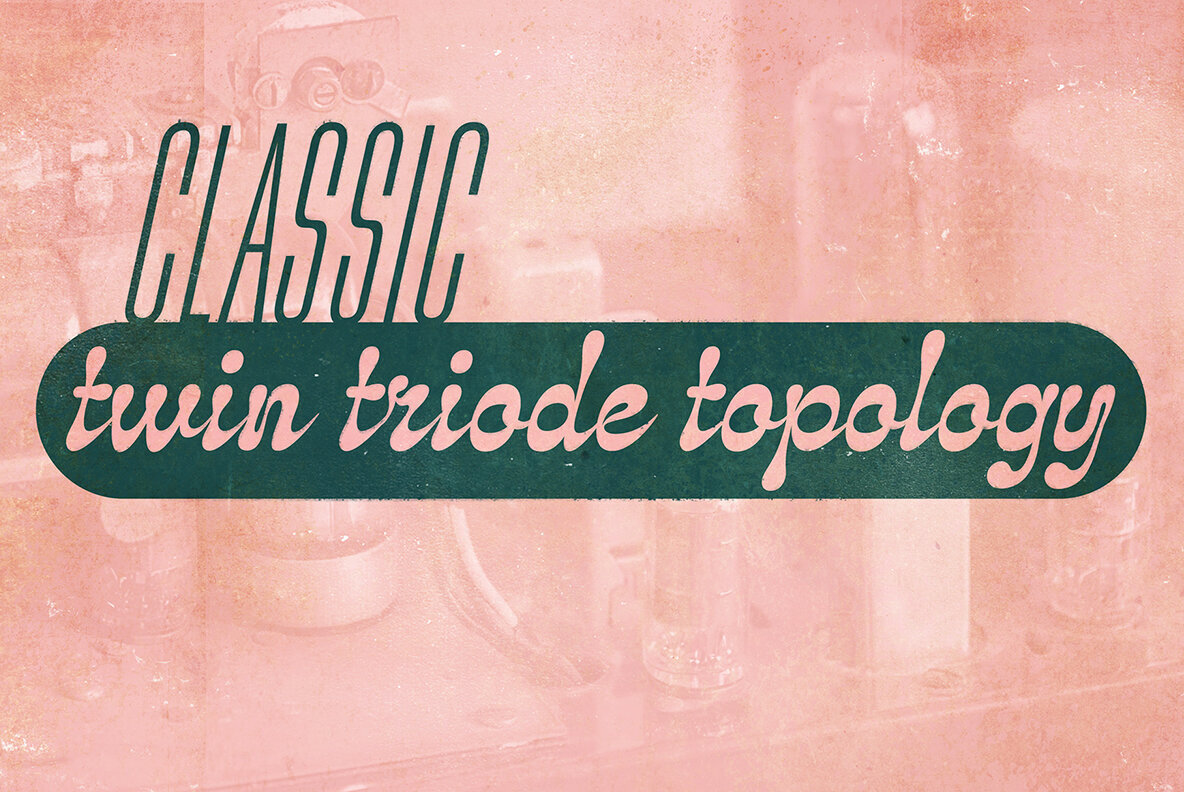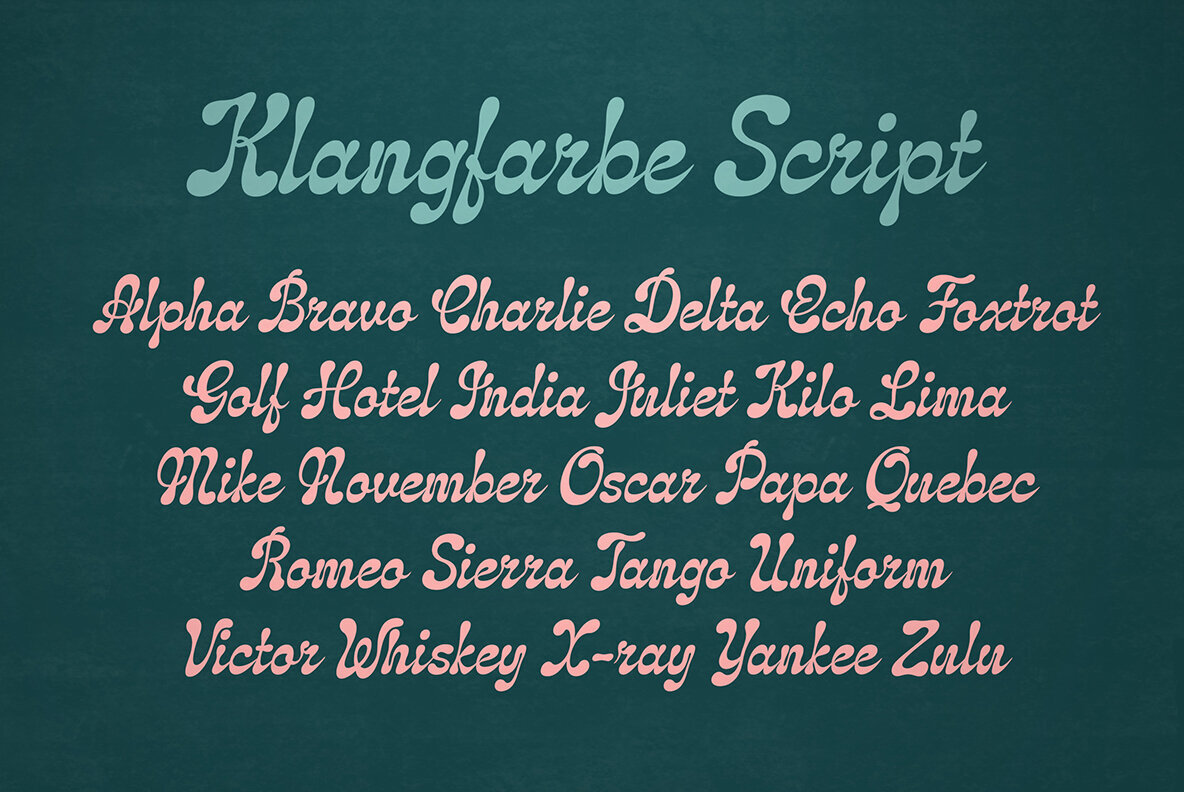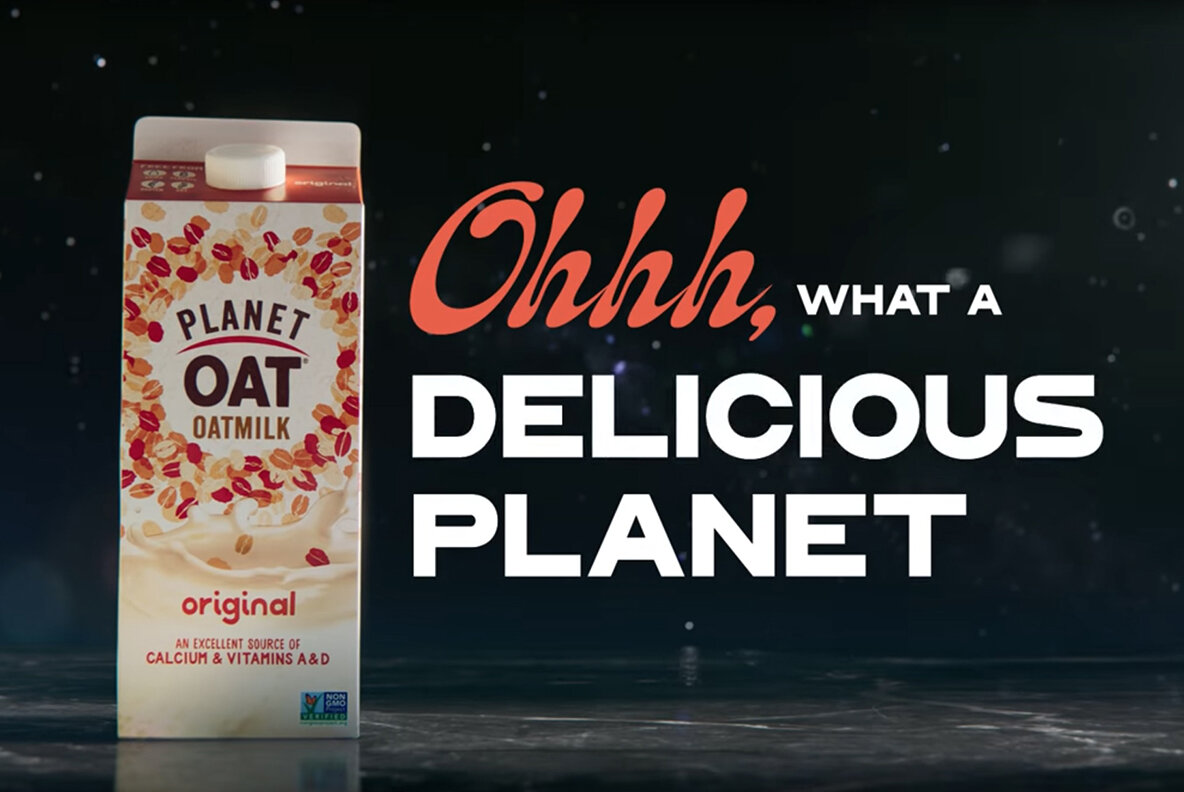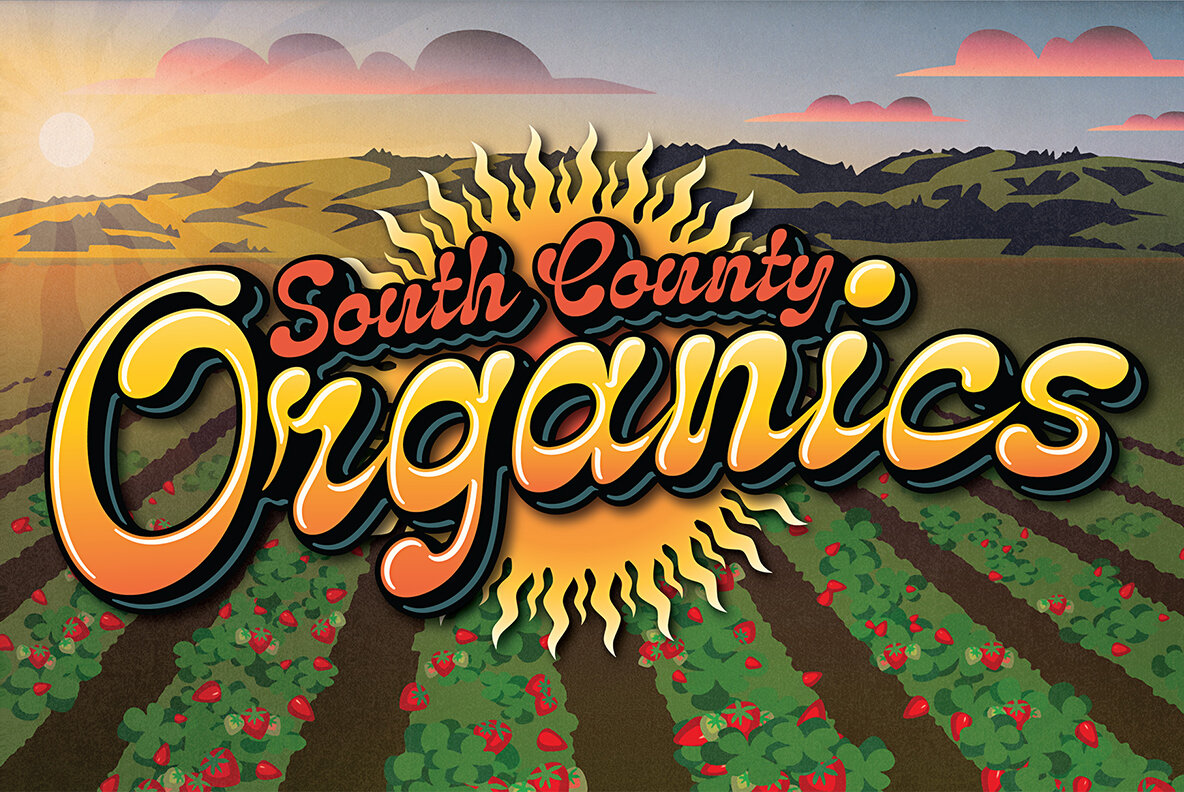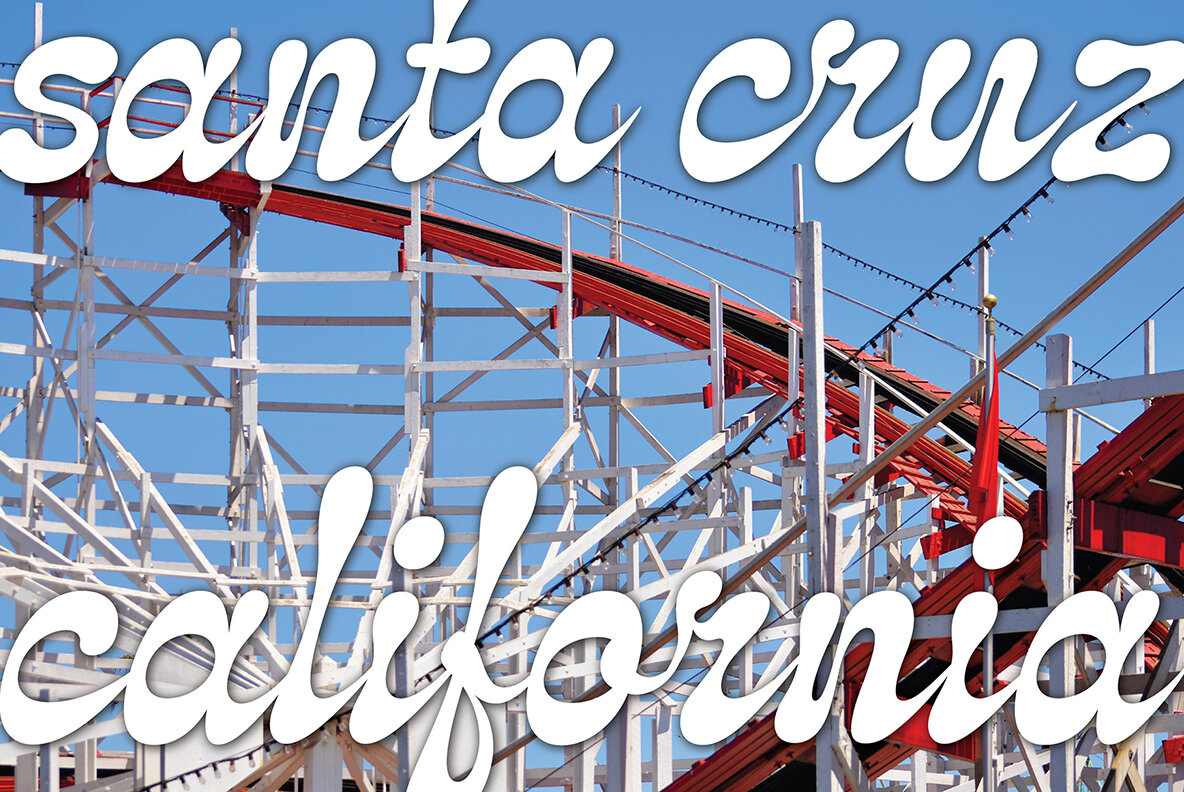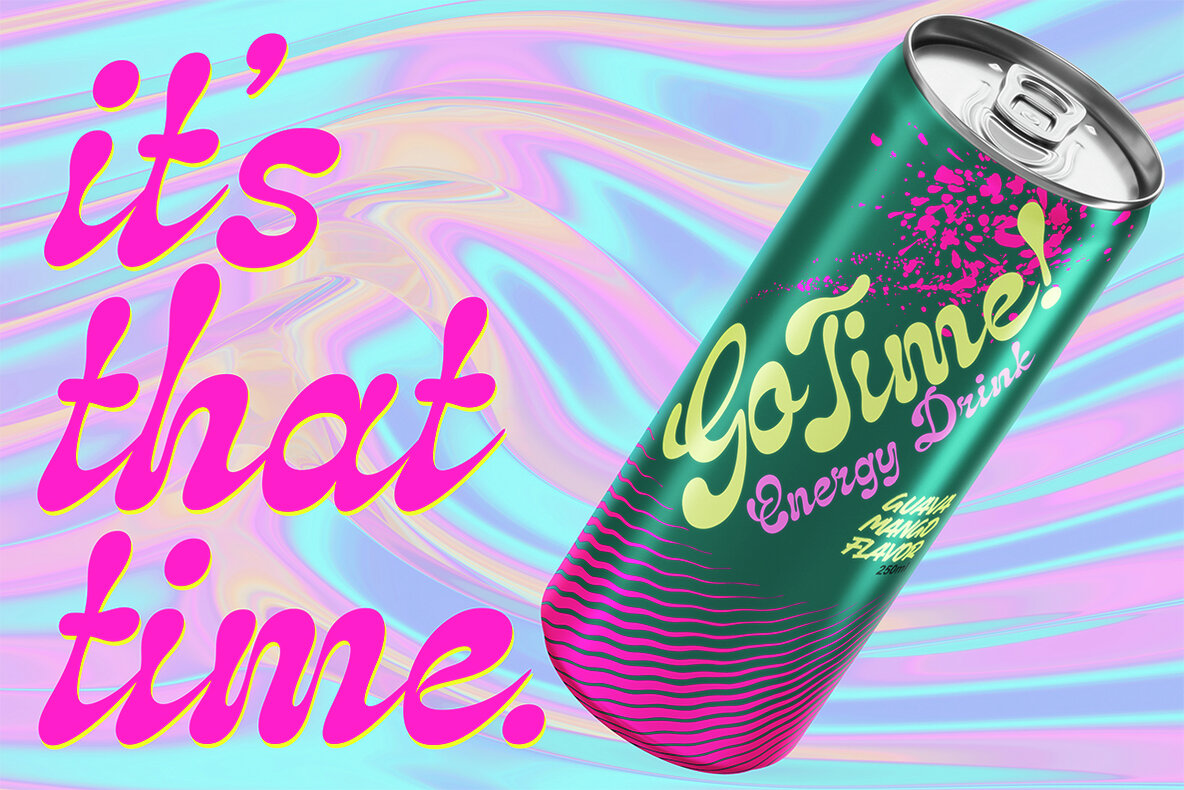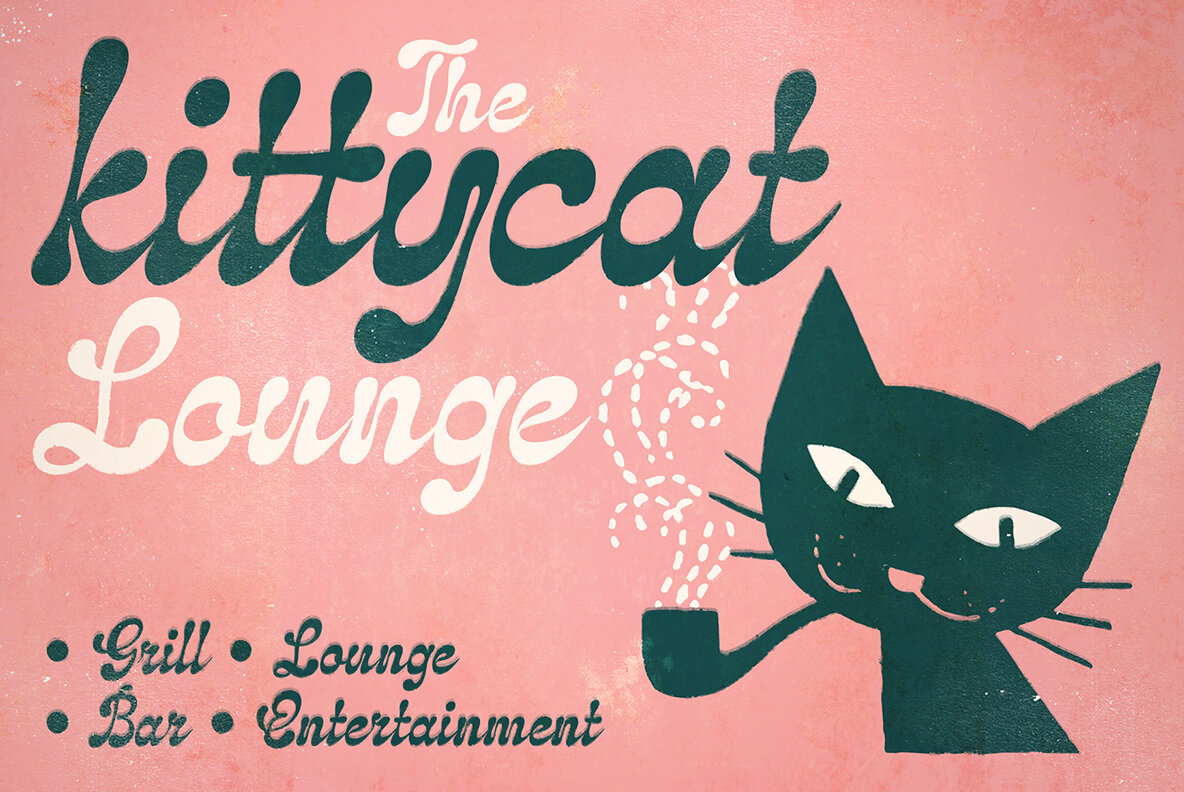
Klangfarbe Script Font
Klangfarbe Script Regular
At once modern and retro, Klangfarbe Script is super versatile and is equally at home in graphics for 1950s kitsch, homespun product branding, classic vintage audio logotypes, high end personal products, quirky cartoon logos, drink and snack branding, and much more. Klangfarbe is a German language term meaning "timbre" or "tonal color."
Mott Jordan studied studio art and design at U.C. Santa Cruz, and was a self-employed sign painter and later a full-time graphic artist at a local weekly. His type design career began in earnest under Ilene Strizver at International Typographic Corporation in the mid-1990s, releasing two typefaces (ITC Verkehr...